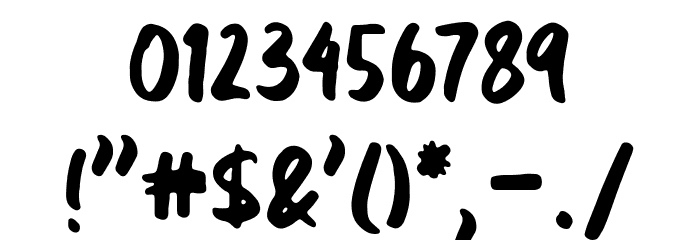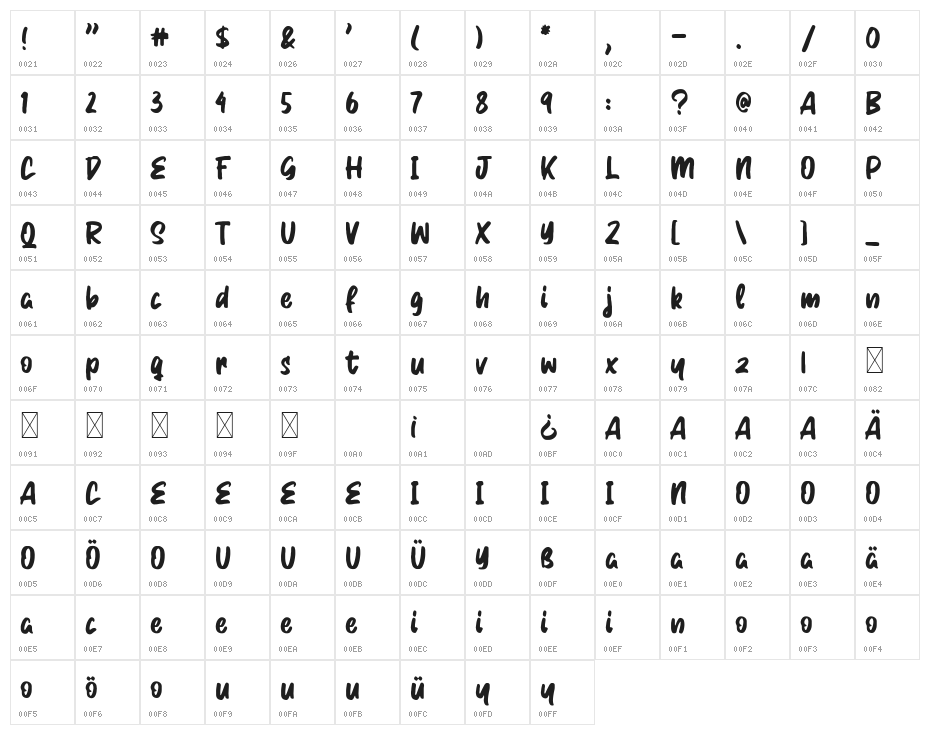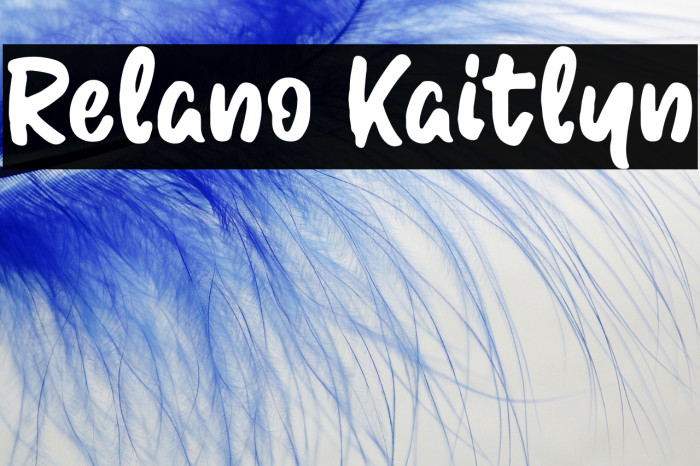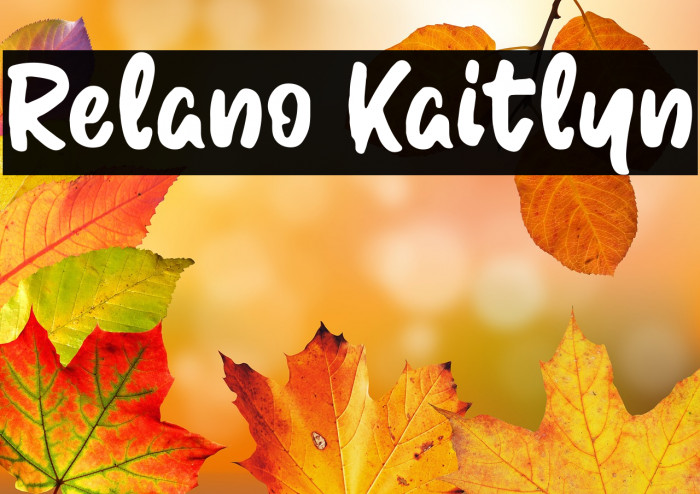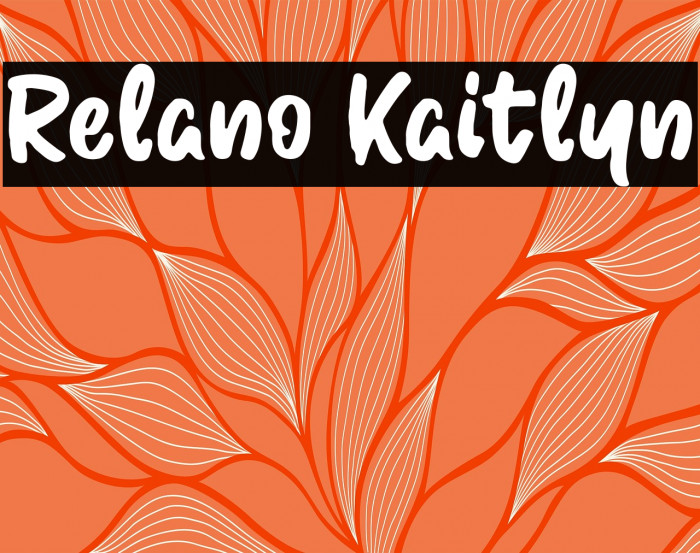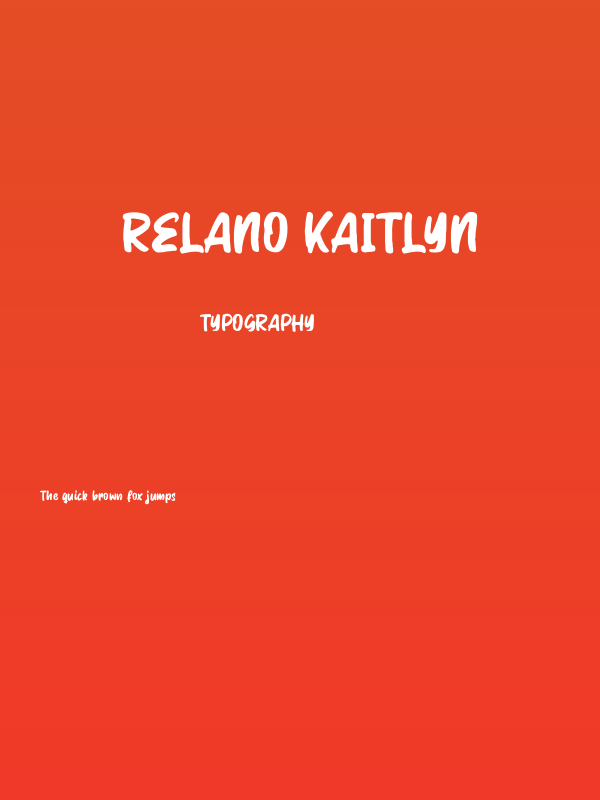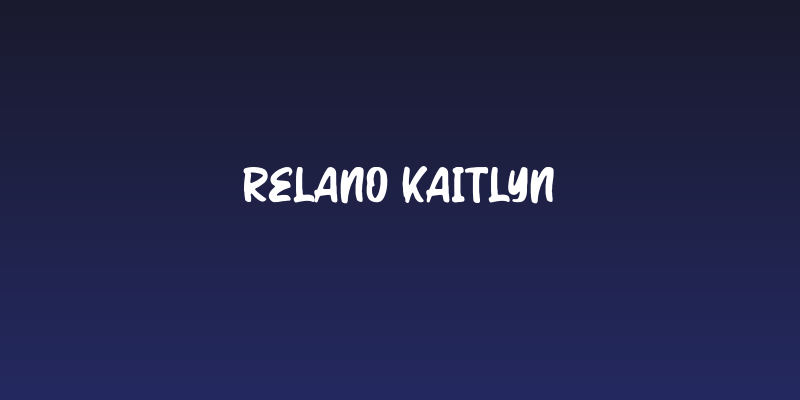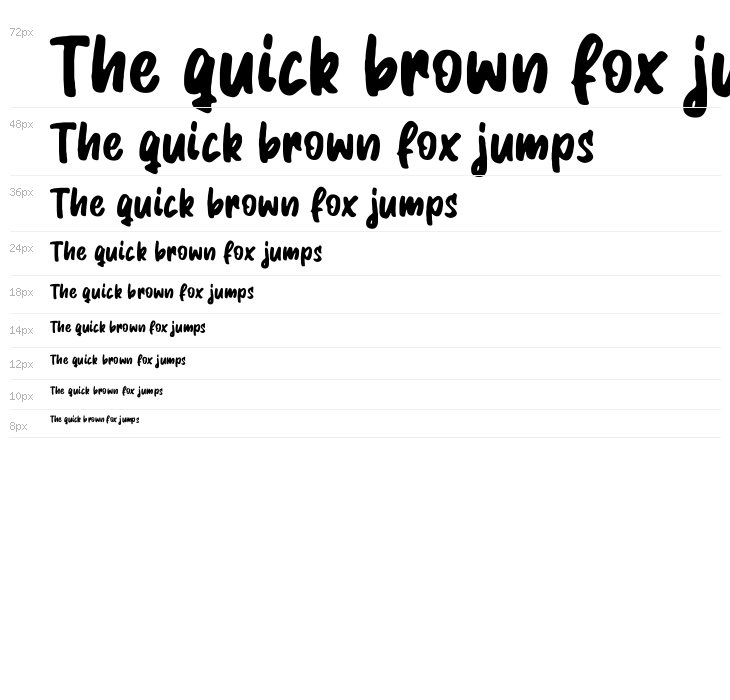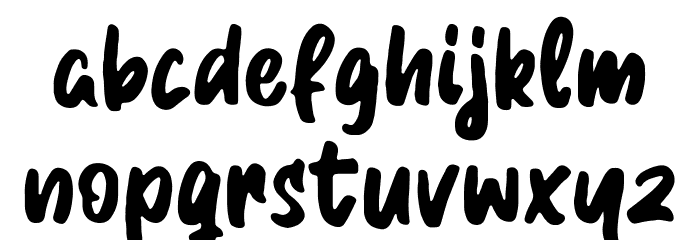
Relano Kaitlyn Font
Relano Kaitlyn Description
This font features a bold and expressive handwritten style, characterized by its thick strokes and playful curves. The letters are slightly irregular, giving it a casual and friendly appearance. The uppercase and lowercase letters maintain a consistent style, with rounded edges and a dynamic flow. Numbers and special characters are designed to match the overall aesthetic, ensuring a cohesive look across all text elements. This font is ideal for projects that require a personal touch or a sense of informality.
Overall StyleCasual, Playful
Use CaseHeadlines, Logos, Invitations
Proposed ProjectsPerfect for greeting cards, invitations, posters, and branding that seeks a personal and friendly vibe.